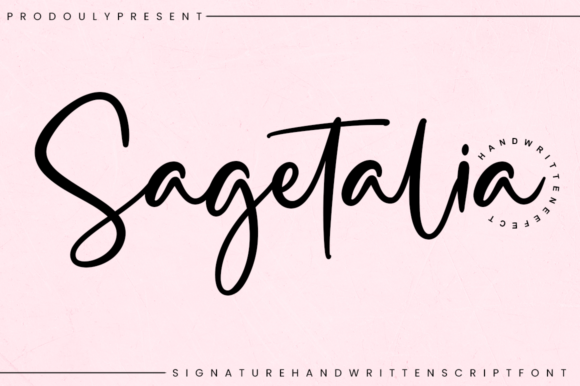
About Sagetalia Font
“Sagetalia” is a stunning handwritten font that offers a perfect blend of beauty and versatility, making it an excellent choice for various design applications. Whether you’re working on logos, wedding stationery, photographic watermarks, or modern website design, “Sagetalia” is a font that can elevate your creative projects to new heights.
The font’s distinct and timeless style sets it apart, making it a valuable asset for designers and creatives. Its handwritten quality adds a personal and creative touch to your text, making it suitable for a wide range of design needs.
The versatility of “Sagetalia” allows it to adapt to different contexts, ensuring that your projects stand out and capture the attention of your audience. Its completely different and unique style can transform your designs into spectacular works of art.
By incorporating “Sagetalia” into your design work, you can infuse your projects with a sense of beauty and timelessness. Its elegance and distinctiveness make it a font that leaves a memorable impression on your audience. Whether you’re a professional designer or someone passionate about creating visually stunning designs, “Sagetalia” is a font that can help you achieve your design goals with style and impact.